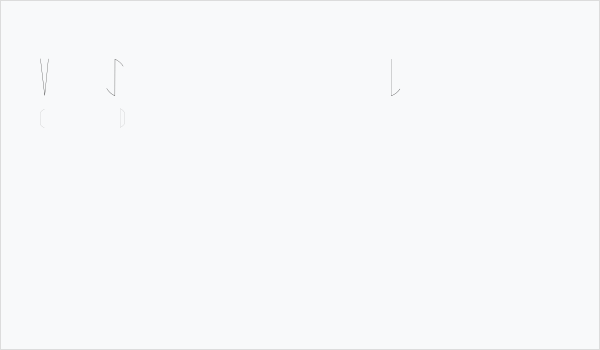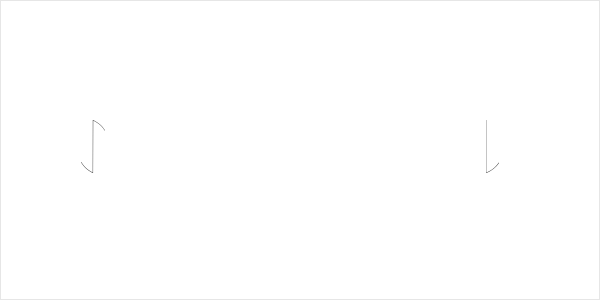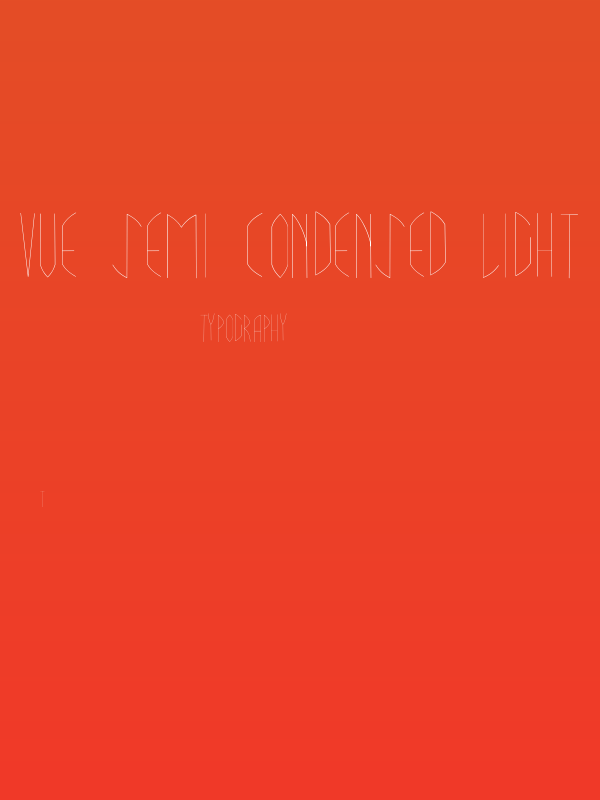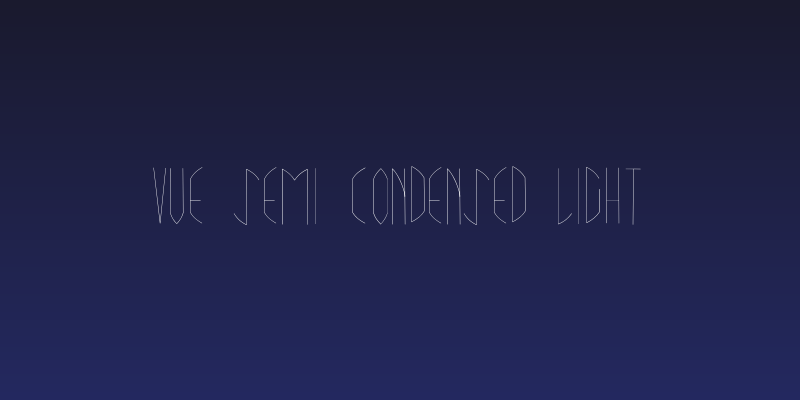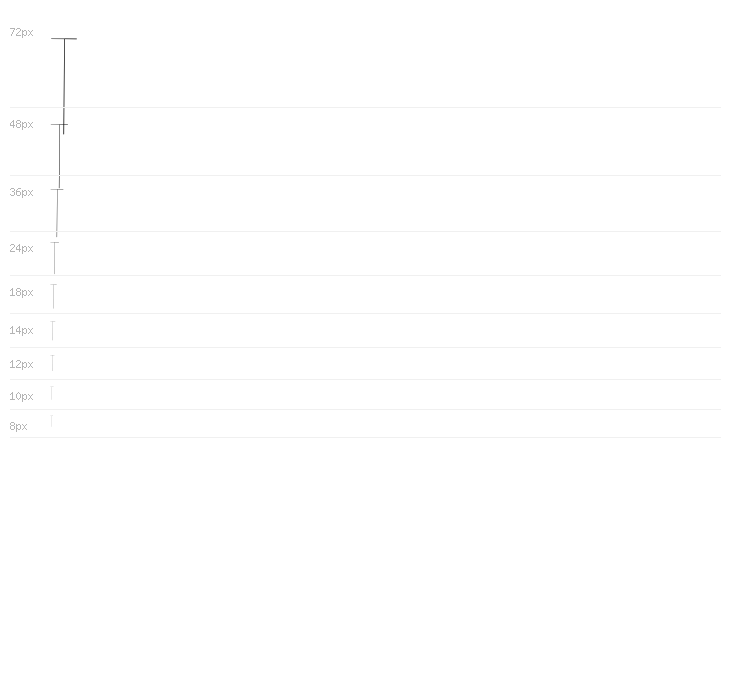
Vue Semi-condensed Light Font
Vue Semi-condensed Light Description
This font features a unique and modern design with semi-condensed letterforms. The characters are constructed with thin, light strokes that give it an airy and elegant appearance. The uppercase letters have a geometric and angular style, while the lowercase letters maintain a consistent design ethos. The numerals and special characters follow the same thin and precise line work, making it suitable for minimalist and contemporary design projects. The overall aesthetic is clean and sophisticated, ideal for projects that require a touch of modernity and elegance.
| Use Case | Headlines, Logos, Editorial design |
| Proposed Projects | Ideal for modern branding, editorial design, minimalist posters, and digital interfaces. |